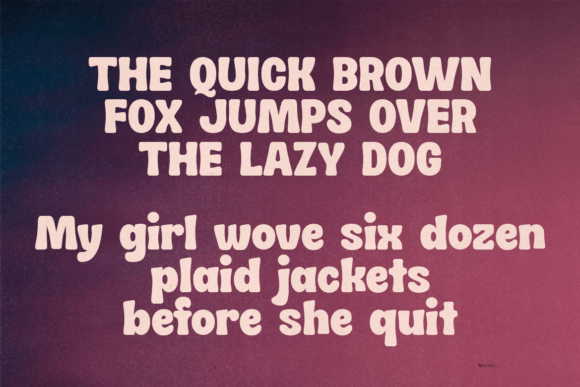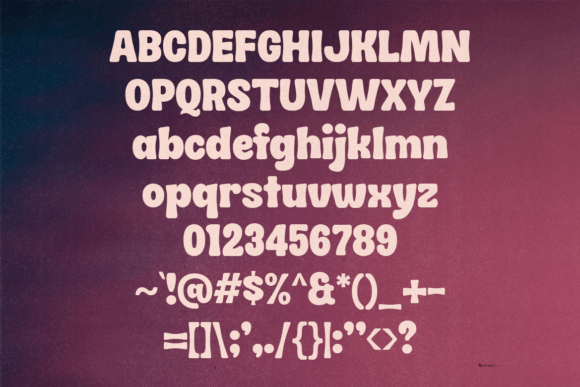
Revive the Retro Charm with Afrodotz Font
Ah, the thrill of working on a design project, only to hit a roadblock when searching for the perfect font. I recall a particularly frustrating experience when a client asked for a font that embodied the nostalgia of the ’90s and early 2000s. After scouring the internet, I stumbled upon Afrodotz – a Retro Bold Pop Y2K font that instantly transported me back in time. If you’re a designer, crafter, or creative hobbyist looking to add a dash of retro charm to your projects, you’re in luck!
An Honest Review of Afrodotz
What I Love About Afrodotz ✨
- 💥 Instantly recognizable retro vibe that’s perfect for Y2K-inspired designs
- 🔥 Bold and eye-catching, making it ideal for headlines and titles
- 🎉 Highly legible, even at smaller font sizes
- 👍 Well-suited for a variety of design projects, from posters to social media graphics
While Afrodotz is an excellent font, it’s not without its quirks. For instance:
- 🤔 Some characters may appear a bit cramped, particularly when using all caps
- ⚠️ Limited language support, so be sure to check compatibility before use
To take full advantage of Afrodotz’s OpenType features, experiment with different glyphs and stylistic alternates. For example, you can use the font’s built-in ligatures to add a touch of whimsy to your text.
The Designer’s Inspiration Behind Afrodotz
While the true story behind Afrodotz remains a mystery, it’s easy to imagine that the designer was inspired by the vibrant, playful aesthetic of the ’90s and early 2000s. Perhaps they grew up watching MTV, playing video games, and listening to pop music – all of which have influenced the font’s bold, eye-catching design.
Q: What type of projects is Afrodotz best suited for?
A: Afrodotz is versatile and can be used for a variety of design projects, including posters, social media graphics, flyers, and more.